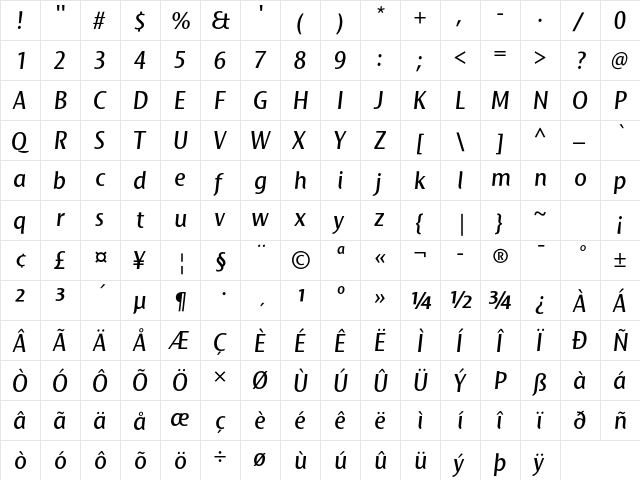
Mosquito Std Italic
Design Context for Mosquito Std Typeface
Mosquito Std takes a measured approach to typography — its balanced proportions and neutral character make it a reliable workhorse for both digital and print work. Its italic angle brings a sense of urgency and motion to the letterforms.
Pro Tip: Use Mosquito Std for emphasis, pull quotes, and subheadings where its slanted energy can add rhythm to the layout.